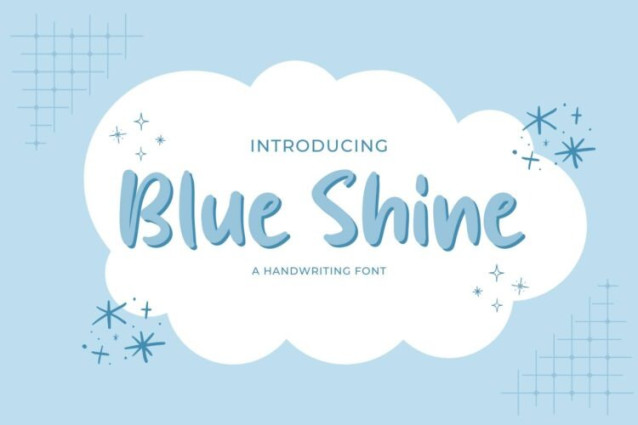
Blue Shine Font
Blue Shine Font is a simple and modern display font suitable for quotes, logos, headings, titles, and many more. Use it on any of your creative projects, and your designs will become outstanding!